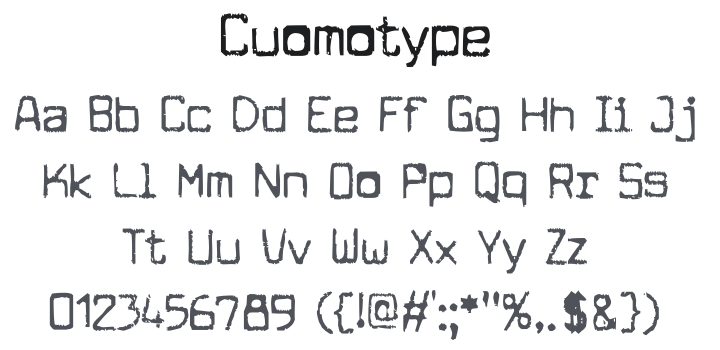
Cuomotype Font
About Cuomotype
Cuomotype is a weathered, distressed typeface inspired by the Olympia Senatorial — a heavy-duty early 1970s typewriter font. Its rusty, square letterforms look worn and unevenly inked, as if hammered out on an aging machine. Perfect for vintage correspondence aesthetics, noir editorial design, retro-political posters, journalism-themed layouts, and anything that needs gritty typewritten authority.